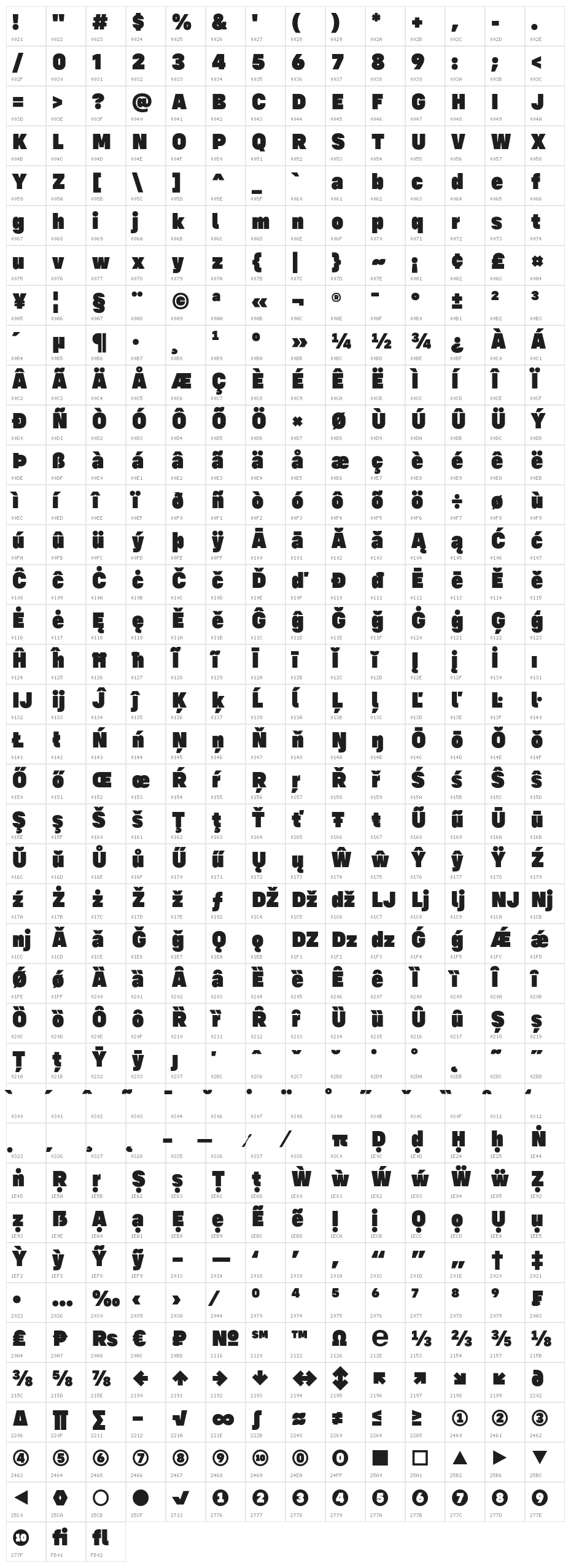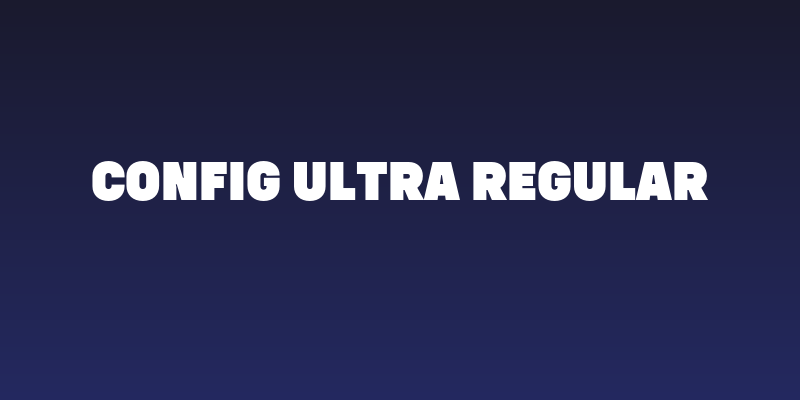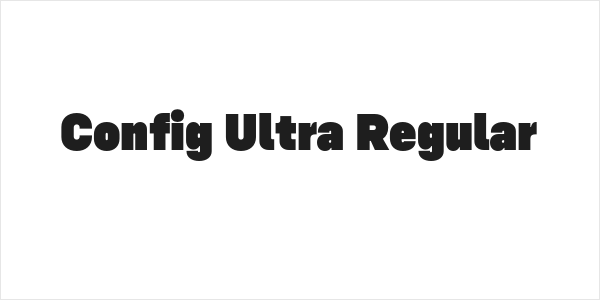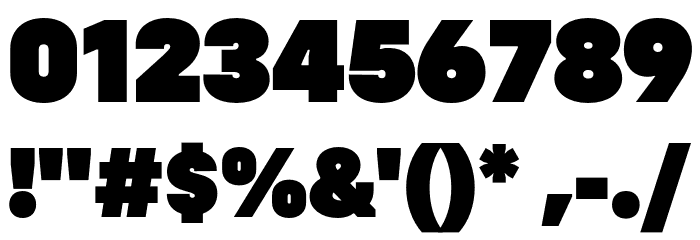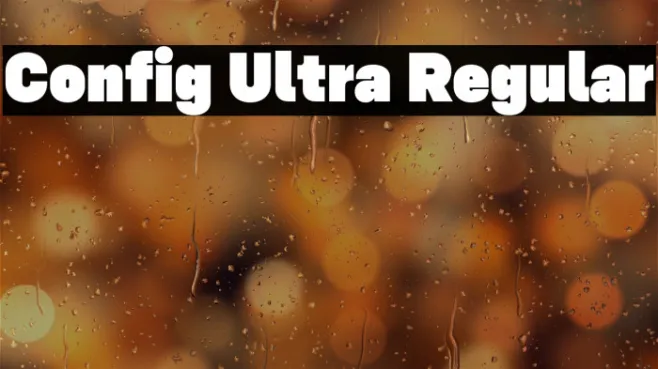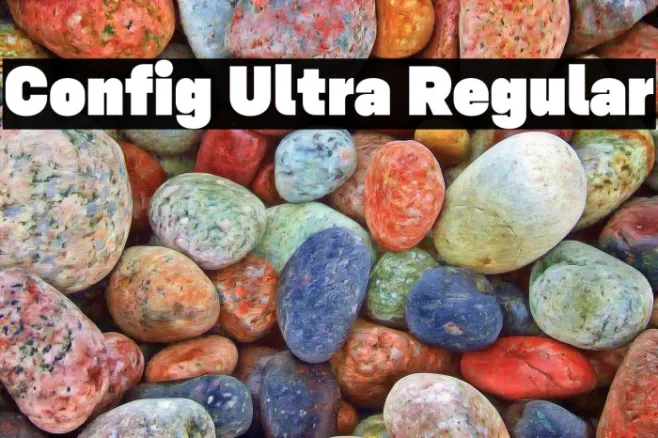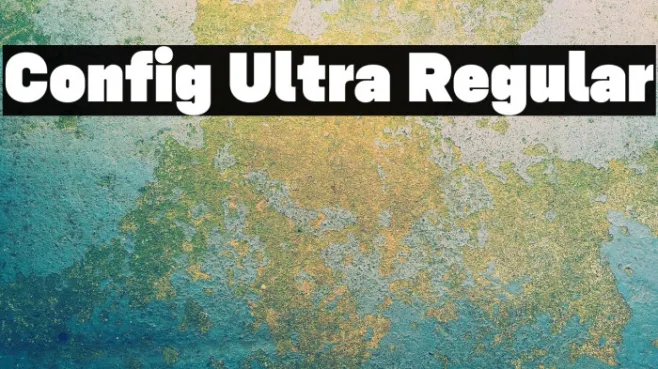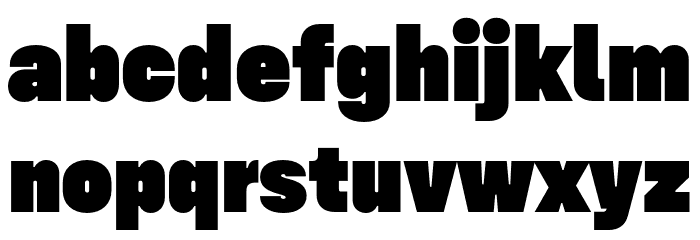
Config Ultra Regular Font
Config Ultra Regular Description
This font exhibits a bold and impactful design, characterized by thick, uniform strokes that create a strong visual presence. The uppercase and lowercase letters maintain a consistent weight, contributing to its robust appearance. The numerals and special characters are equally bold, ensuring readability and emphasis. The font's geometric structure and solid form make it suitable for attention-grabbing headlines and titles. Its design is straightforward yet powerful, with a modern aesthetic that can be applied to various creative projects.
| Proposed Projects | Ideal for posters, headlines, branding, and any project requiring a bold statement. |